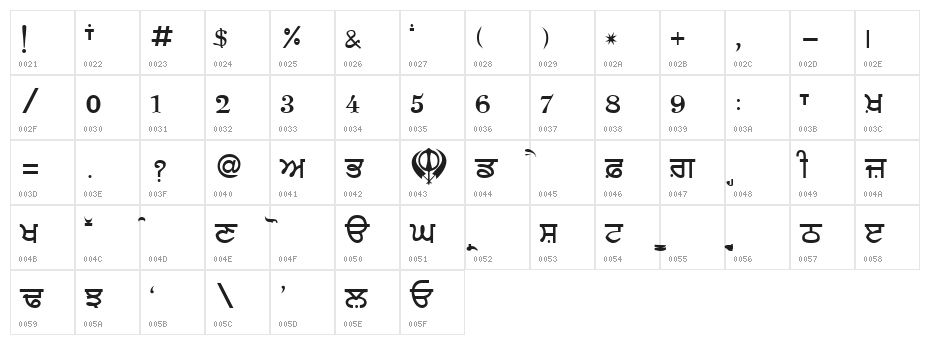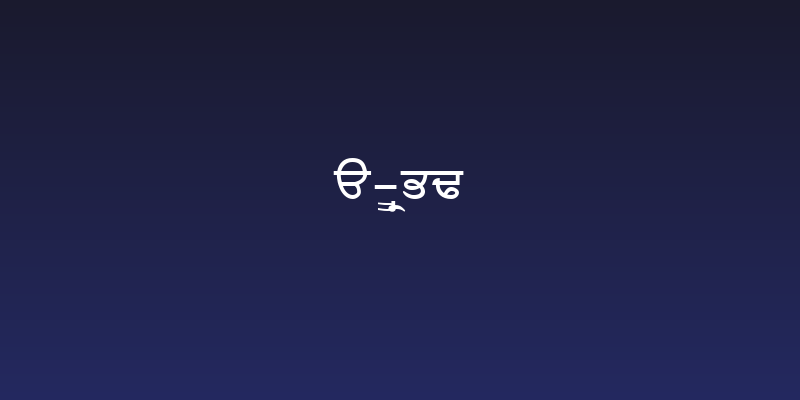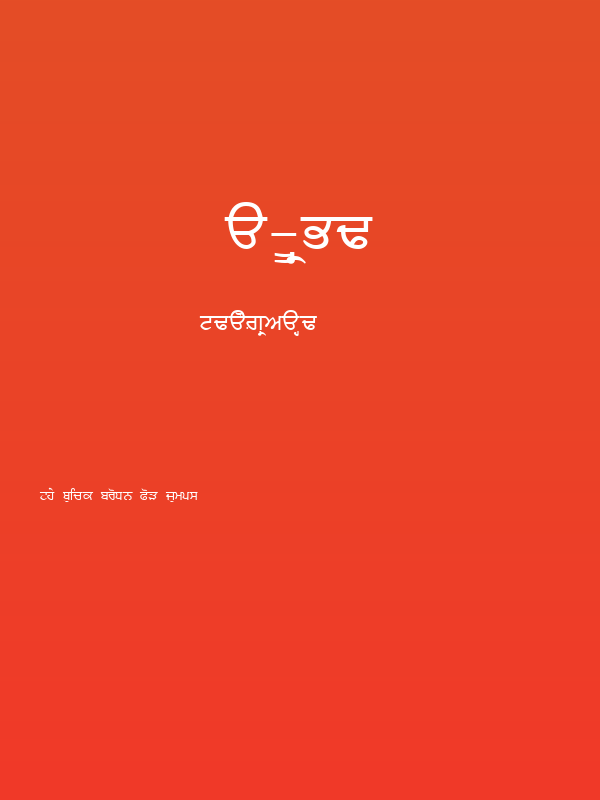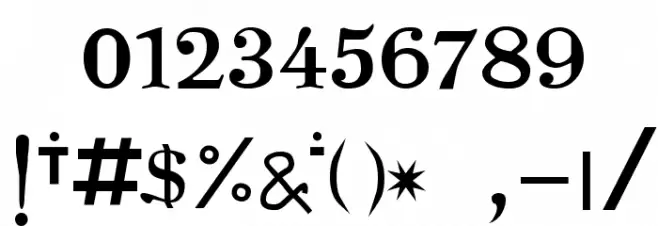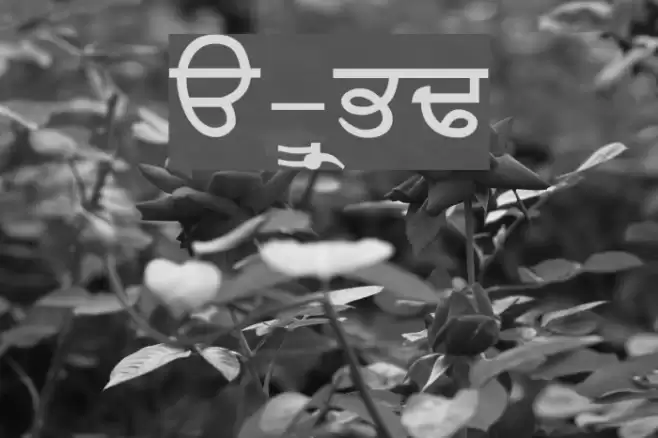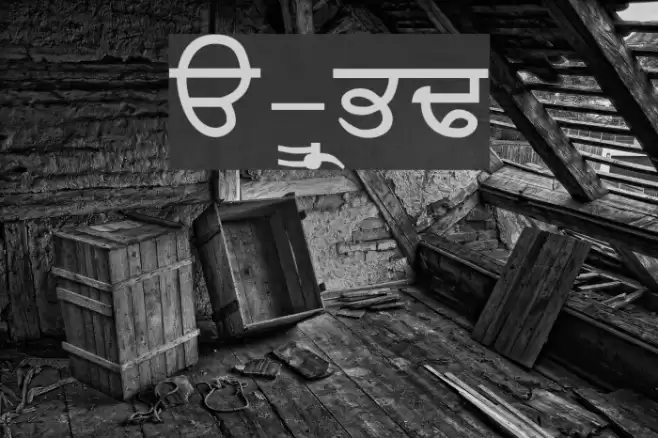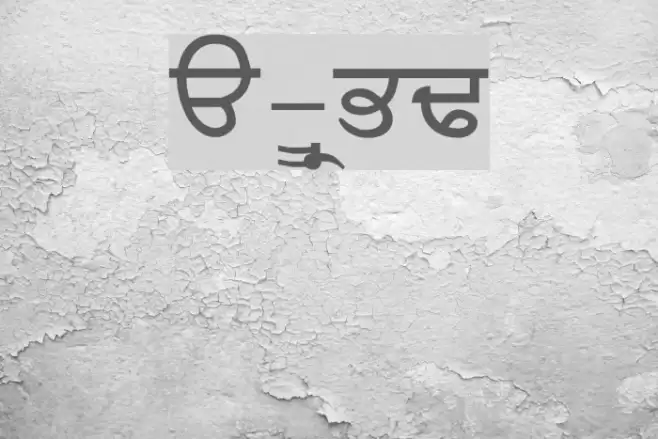
P-RUBY Font
P-RUBY Description
This font features a unique blend of traditional and modern elements, characterized by its distinct script style. The characters are elegantly crafted with a moderate stroke width, providing a balanced and readable appearance. The numerals are clear and consistent, matching the overall aesthetic of the font. Special characters are designed with a creative flair, adding to the font's versatility. The font's style is suitable for a variety of applications, offering both functionality and visual appeal.